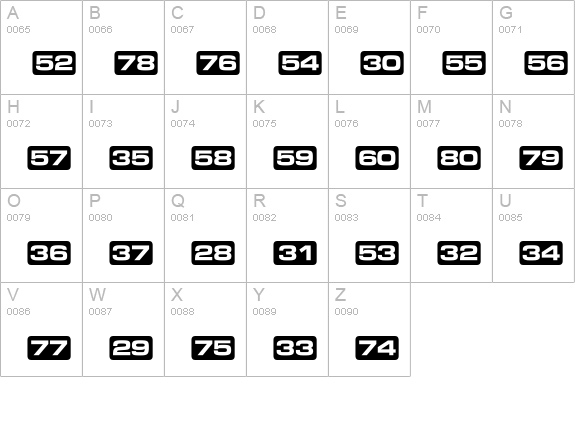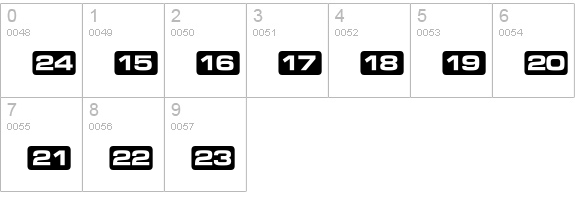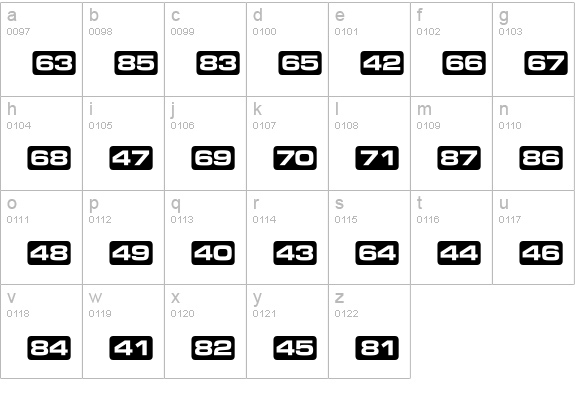
TelevisionP01 Font Details
Introducing TelevisionP01, a captivating and versatile font that is bound to leave a lasting impression. This font effortlessly combines modern aesthetics with a touch of vintage charm, making it the perfect choice for various creative projects. With its clean lines and elegant curves, TelevisionP01 exudes a sense of sophistication and professionalism. Whether used in headlines, logos, or branding materials, this font has the ability to elevate any design and capture the attention of viewers. One of the standout features of TelevisionP01 is its extensive character set, which includes a wide range of punctuation marks, numerals, and special symbols. This ensures that you have all the tools you need to express your creativity and communicate your message effectively. What sets TelevisionP01 apart from other fonts is its incredible versatility. It seamlessly adapts to different styles and themes, whether you're going for a minimalist and contemporary look or a bold and retro vibe. This font truly allows you to unleash your imagination and create designs that stand out from the crowd. And the best part? TelevisionP01 is completely free! You can easily download this font at FontsMarket.com, making it accessible to designers, artists, and enthusiasts alike. Say goodbye to expensive font licenses and hello to the freedom of creativity with TelevisionP01. So why wait? Embrace the power and beauty of TelevisionP01 and take your design projects to new heights. Download this font today and let your creativity soar.